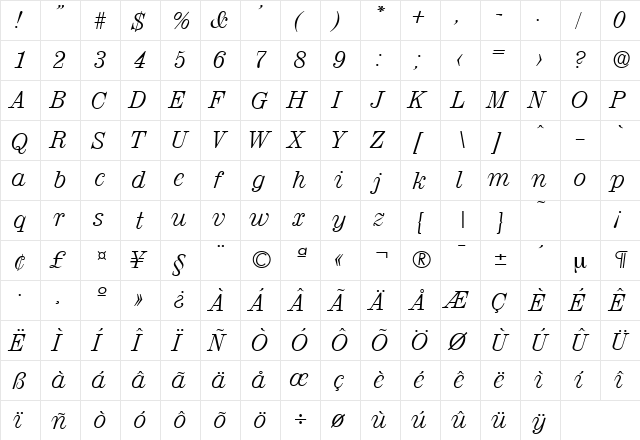
Valencia-Serial-Light RegularItalic Font Preview
Design Context for Valencia-Serial-Light Typeface
Valencia-Serial-Light offers clean, dependable letterforms without strong stylistic allegiance, making it a practical choice for designers who need flexibility. The dynamic lean of this cut emphasises speed and emphasis in any layout. The delicate stroke weight brings airiness and refinement to layouts.
Pro Tip: Try Valencia-Serial-Light for annotation and caption copy alongside an upright companion — the contrast in angle creates a dynamic but ordered typographic system.